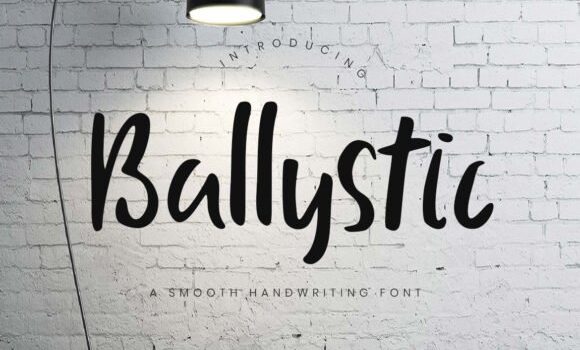
ballystic
Ballystic Font - Featured Image
Ballystic Font – Free Download Introduction to Ballystic Font The Ballystic is a beautiful and easy to read handwritten font. 📸 Preview Gallery 4 images 📌 Product Name Ballystic Font 👤 Author CreatypeStudio 📂 Category Explore ⬇️ Download Ballystic Font